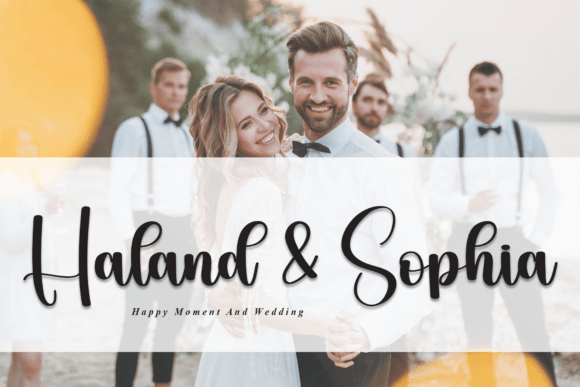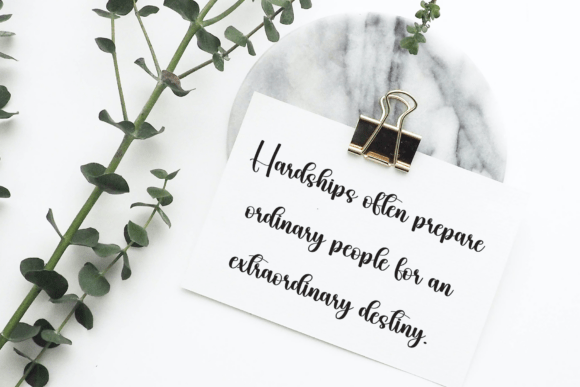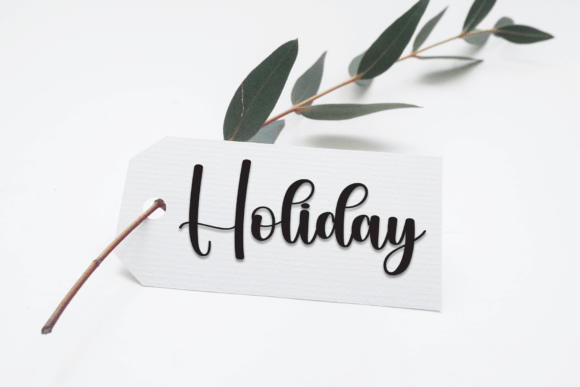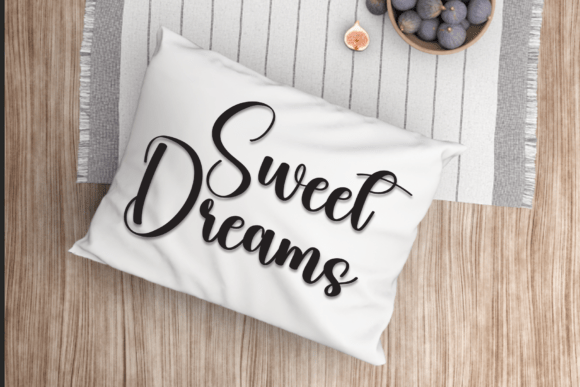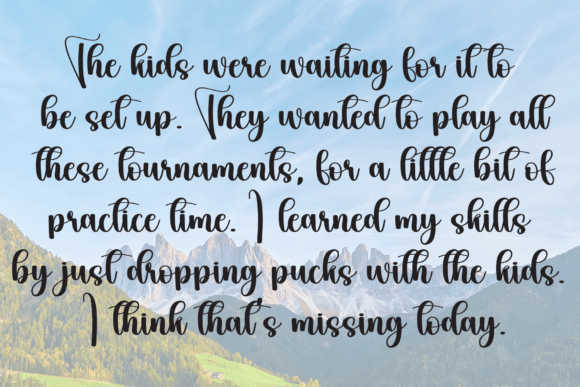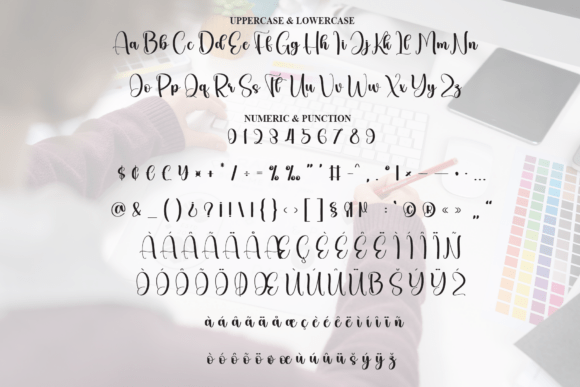
Introduction to Hello Designer Font
You’ve finally nailed the concept for your creative project – the perfect balance of style, emotion, and message. But now, you’re stuck on finding the perfect font to bring it all together. That’s where the Hello Designer Font comes in – a stylish handwritten script font that combines elegance with a modern flair, adding a personal, refined touch to your design.
With its flowing strokes and organic curves, the Hello Designer Font is the perfect design resource for any creative project. Whether you’re working on a branding project, designing invitations, or creating social media graphics, this high-quality font is sure to make your work stand out. Plus, its effortless charm makes it easy to use and customize, even with a transparent background, giving you complete creative control.
Key Features of Hello Designer Font
- High-quality font with a transparent background, perfect for creative projects and design resources.
- Includes 12 unique font styles, each with its own distinctive characteristics, making it a valuable resource for designers.
- Features a high resolution of 300 DPI, ensuring that the font looks crisp and clear in print and digital applications.
- Perfect for use in creative projects, such as logos, branding materials, and typography-based designs.
- Designed to be highly versatile, with a wide range of applications in the fields of graphic design, web design, and digital art.
Honest Review: Hello Designer Font
I’ve had the chance to work with Hello Designer Font on a recent creative project, and I must say it’s been a game-changer. As a designer, I’m always on the lookout for high-quality design resources that can elevate my work, and this font definitely delivers.
What could be improved: ⚠️ While the font is generally high-quality, I did notice some minor irregularities in the letterforms. However, this is a relatively minor issue and didn’t significantly impact my overall experience.
Here are some of the key features that stood out to me:
- Transparent background for easy use on any background
- Customizable to fit your design needs
Overall, I’m really impressed with Hello Designer Font and would highly recommend it to any designer looking for a reliable and versatile design resource.
Hello Designer Font
– Use the font to create stunning graphics and designs for social media, marketing materials, and more.
– Add the font to your designs for a professional touch.
– Use the font to create engaging presentations and documents.
Tips for Getting the Most Out of Hello Designer Font
To get the most out of Hello Designer Font, use it in combination with other design elements, such as graphics and images. Experiment with different font sizes and styles to add visual interest to your design.
Hello Designer Font is perfect for:
- Creating elegant invitations and event materials
- Designing marketing materials, such as brochures and flyers
- Adding a touch of sophistication to your website or blog